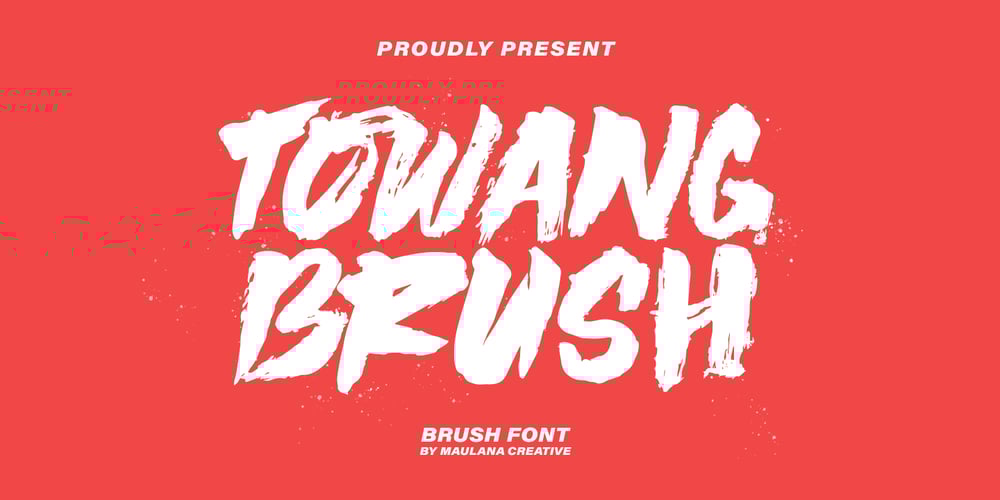
Towang Brush Font Font Family was designed by Gilang Maulana and published by Maulana Creative. Towang Brush Font contains 1 styles and family package options. Give your designs an authentic handcrafted feel. “Towang Brush Font” is perfectly suited to signature, stationery, logo, typography quotes, magazine or book cover, website header, clothing, branding, packaging design and more.Thanks for use this font ~ Maulana